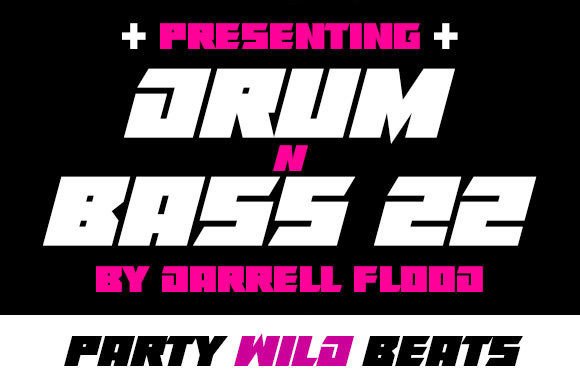
Unleash Your Creativity with Drum N Bass 22 Font: A Futuristic Typeface for the Modern Designer
In the realm of typography, fonts play a pivotal role in shaping the visual identity of a project. Whether you’re a graphic designer, a crafty DIY enthusiast, or a tech-savvy individual, the right font can elevate your work from ordinary to extraordinary. This is where the Drum N Bass 22 Font comes into play—a high-impact, square-based font that embodies a modern, edgy style perfect for a variety of futuristic themes.
Embracing the Futuristic Vibe
Drum N Bass 22 Font is not just any ordinary typeface. Its design is deeply rooted in the futuristic and the unconventional, making it an ideal choice for projects that scream ‘out of this world.’ Imagine using it for sci-fi themes, where the narrative demands a sense of adventure and mystery. This font brings to the table a robust and commanding presence, reminiscent of the vastness of space and the technology that explores it.
Ideal for Tech Presentations and Space Exploration Projects
For tech presentations that require a modern and sleek look, Drum N Bass 22 Font proves to be a versatile tool. Its square-based design offers a clean and structured appearance, making your tech-related content stand out with a professional edge. Moreover, for projects centered around space exploration or even alien encounters, this font adds a thematic coherence that is hard to achieve with more traditional typefaces.
Key Features of Drum N Bass 22 Font
- High Impact: The font’s bold and substantial design ensures that your message is delivered with force and clarity.
- Square Based: The square foundation of the characters lends a modern and geometric feel, suitable for futuristic and tech-driven projects.
- Modern and Edgy Style: It captures the essence of contemporary design while injecting an edgy vibe that’s perfect for projects needing a bit of an avant-garde twist.
- Versatility: Whether it’s for digital platforms, print media, or DIY crafts, Drum N Bass 22 Font adapts seamlessly across different mediums.
Applications Beyond the Ordinary
The versatility of Drum N Bass 22 Font means its applications are vast and varied. Here are a few ideas to get you started:
- Sci-Fi Movie Posters: Create eye-catching posters for fictional movies or your own film projects.
- Tech Blog Headers: Elevate your tech blog’s visual appeal with headers that are both modern and engaging.
- DIY Crafting Projects: Add a futuristic touch to your crafting projects, such as custom vinyl decals or handmade cards.
- Space-Themed Website Design: Use the font for headings or titles to instantly convey a sense of exploration and innovation.
Tips for Maximizing Impact with Drum N Bass 22 Font
To truly harness the potential of Drum N Bass 22 Font, consider the following tips:
- Pair with Complementary Fonts: For body text, pair it with a clean, sans-serif font to maintain readability and visual harmony.
- Experiment with Colors: While the font’s impact is undeniable in black and white, experimenting with bold colors can further enhance its futuristic appeal.
- Play with Sizes: Utilize varying font sizes to create a hierarchy of information, drawing attention to key points or calls to action.
Drum N Bass 22 Font stands out as a dynamic and versatile typeface, tailor-made for those looking to infuse their projects with a modern, edgy aesthetic. Its suitability for sci-fi themes, tech presentations, alien encounters, and space exploration projects makes it a valuable asset in the world of design. By incorporating this font into your projects, you’re not just choosing a typeface; you’re opting for a statement piece that commands attention and evokes a sense of futurism.
So, dive into the world of futuristic design with Drum N Bass 22 Font, and watch your creative projects transform into visually stunning pieces that are sure to leave a lasting impression.